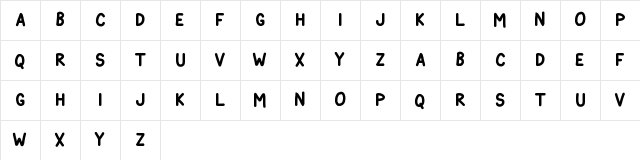
Astronaut City Medium
Complete Astronaut City Medium glyph index. Displaying only characters natively supported by Astronaut City Medium font.
Design Context for Astronaut City
Astronaut City is a composed and adaptable typeface that performs quietly and consistently across a wide range of design contexts.
Pro Tip: Use Astronaut City in both headline and body roles to test its range before committing to a single application.